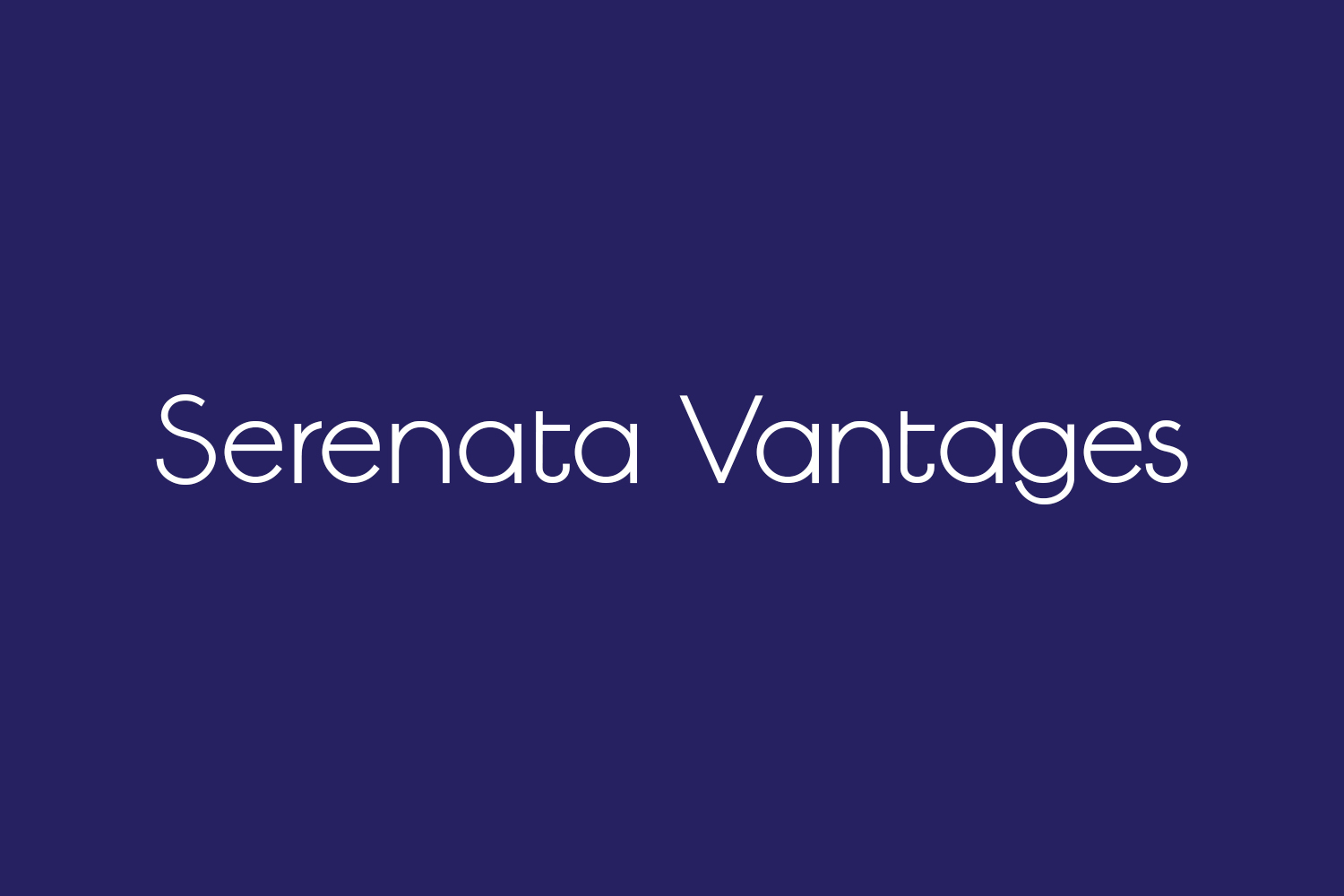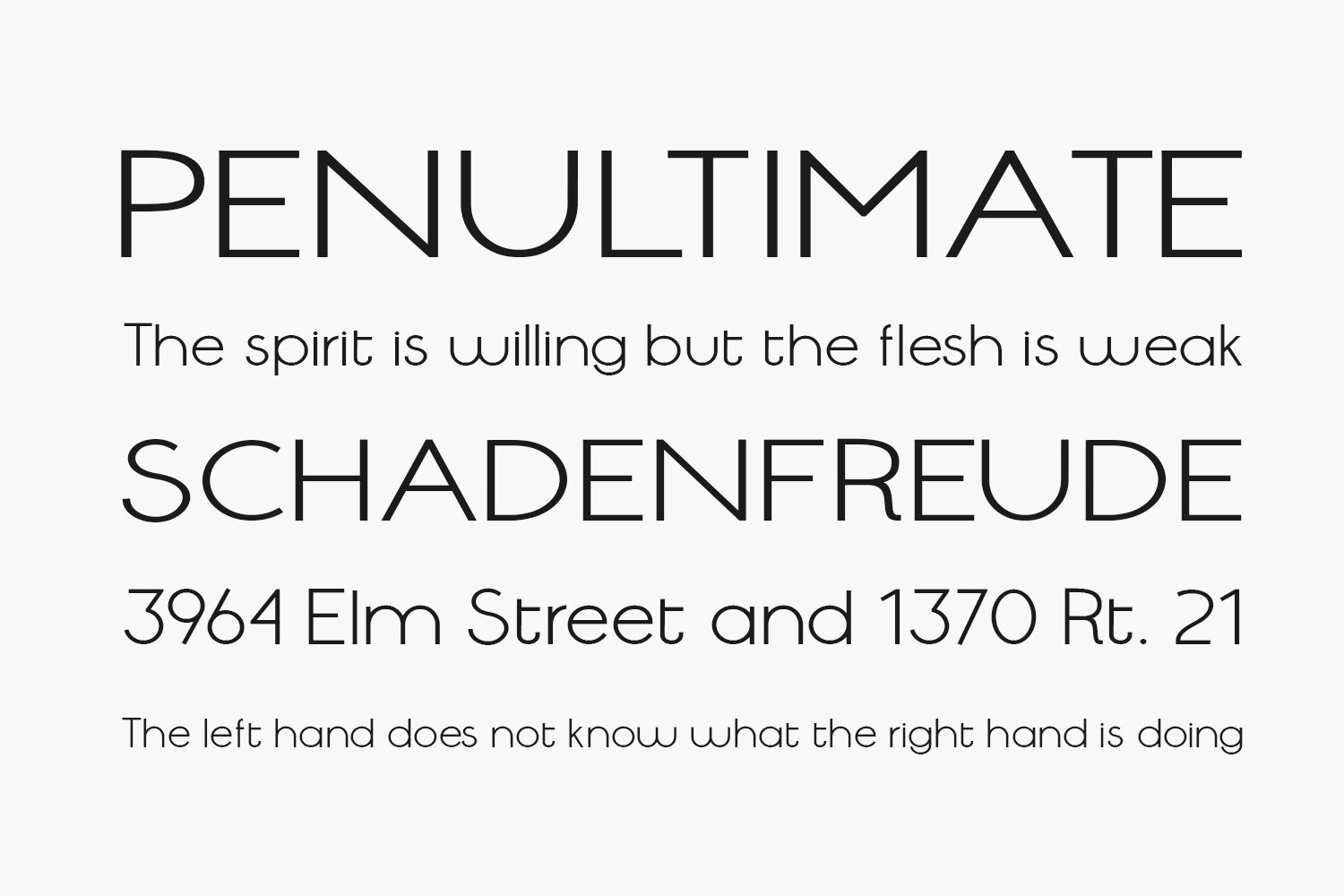
Introducing Serenata Vantages Free Font Family, a refined and elegant sans-serif font radiating modern sophistication. Its sleek lines and balanced letterforms make it an ideal choice for diverse design ventures, spanning branding, advertising, editorial layouts, and web design. Download the font for free if you need it for personal use or purchase the full version for commercial use.
Designed by Fikryal Studio
Serenata Vantages Light The quick brown fox jumps over the lazy dog
Serenata Vantages Regular The quick brown fox jumps over the lazy dog
Serenata Vantages Bold The quick brown fox jumps over the lazy dog